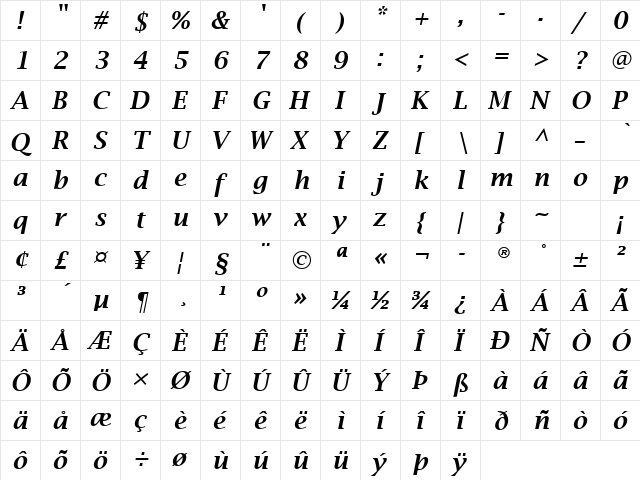
Lucida Bright Demibold Italic
Design Context for Lucida Bright Typeface
Lucida Bright offers clean, dependable letterforms without strong stylistic allegiance, making it a practical choice for designers who need flexibility. The dynamic lean of this cut emphasises speed and emphasis in any layout. The heavy weight commands attention and anchors typographic hierarchies.
Pro Tip: Use Lucida Bright for emphasis, pull quotes, and subheadings where its slanted energy can add rhythm to the layout.